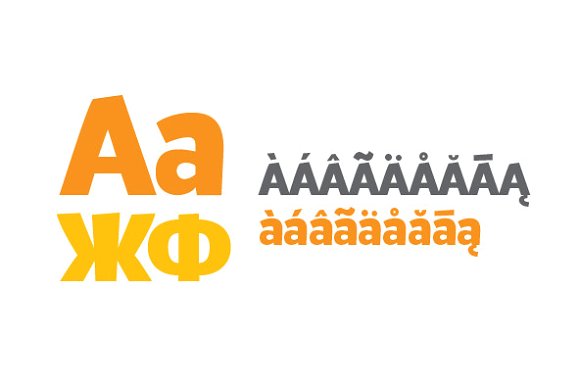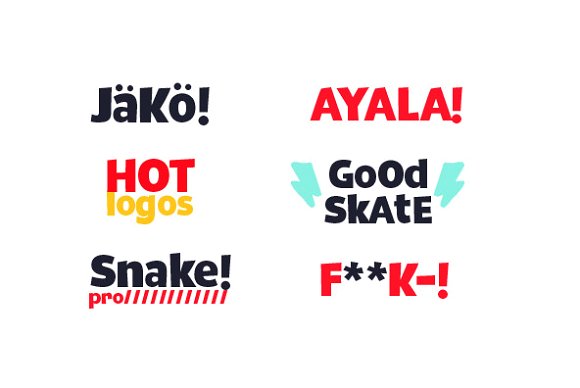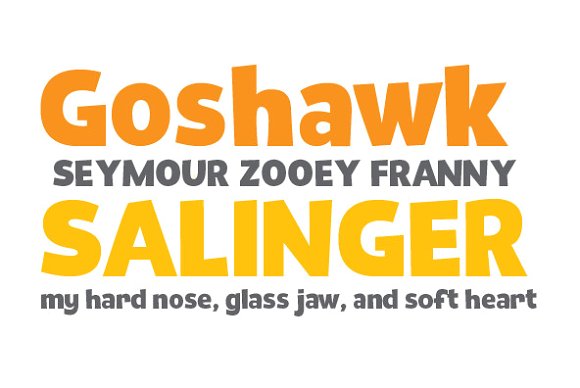
Introduction to Loyola Font
Have you ever stared at a blank page, struggling to find the perfect font to capture the essence of your creative project? You know, that moment when everything depends on the perfect typography to convey your message? That’s exactly what happened to many designers when they discovered the Loyola Font, a fun sans serif designed specifically for titles by Rodrigo Araya Salas from Rodrigo Typo.
As a valuable design resource, the Loyola Font offers a high-quality solution for designers looking to add a touch of personality to their work. With its clean lines and modern feel, this font is perfect for creating eye-catching titles that demand attention. And the best part? It’s available for free download, making it an accessible choice for designers on a budget.
Whether you’re working on a creative project or simply need a reliable font for your next design task, the Loyola Font is an excellent choice. Its transparent background and versatile design make it easy to use in a variety of contexts, from print materials to digital displays.
Key Features of Loyola Font
- Unique, hand-drawn design with a touch of elegance, making it perfect for creative projects.
- Features a transparent background, allowing for seamless integration into any design, including logos, graphics, and more.
- Designed with a modern aesthetic, the Loyola Font is perfect for use in digital and print projects, including business cards, posters, and websites.
- Suitable for use in a variety of creative projects, including branding, packaging, and advertising, due to its versatility and high-quality design.
Honest Review: Loyola Font
I recently came across the Loyola Font, and I must say it’s been a delightful addition to my design resource collection. The free download was a pleasant surprise, and I was excited to see how it would perform in various creative projects.
The Loyola Font is known for its high-quality design and versatility. Here are some of its standout features:
- ✨ Unique, elegant aesthetic that can elevate any design
- ✨ Wide range of font weights and styles to suit various design needs
- ✨ Translucent and transparent background options for added visual interest
Overall, I’m impressed with the Loyola Font. It’s a great addition to any design library, and its unique style is sure to bring a touch of sophistication to any creative project. With a little experimentation and patience, you can unlock its full potential and create truly stunning designs.
Loyola Font is a versatile design resource that can be used in a variety of situations, from creating social media graphics to designing presentations and documents. It’s a great resource for anyone looking to add a touch of elegance and sophistication to their creative projects.